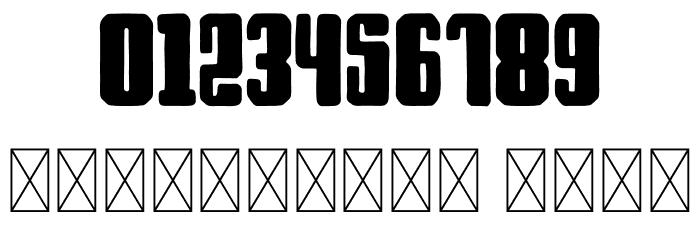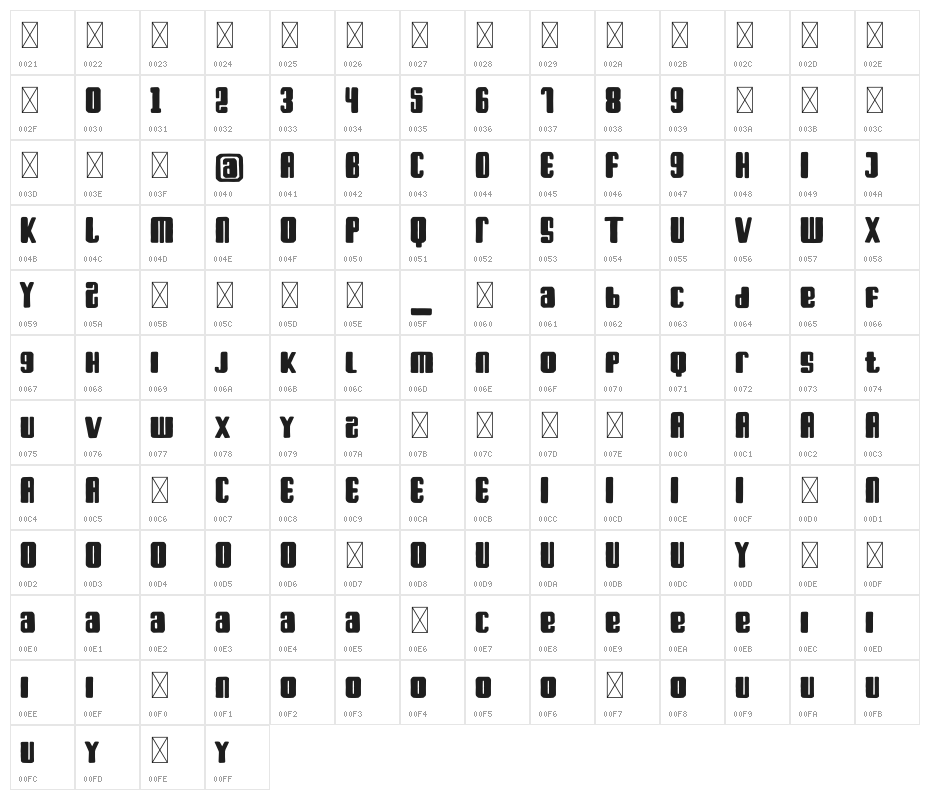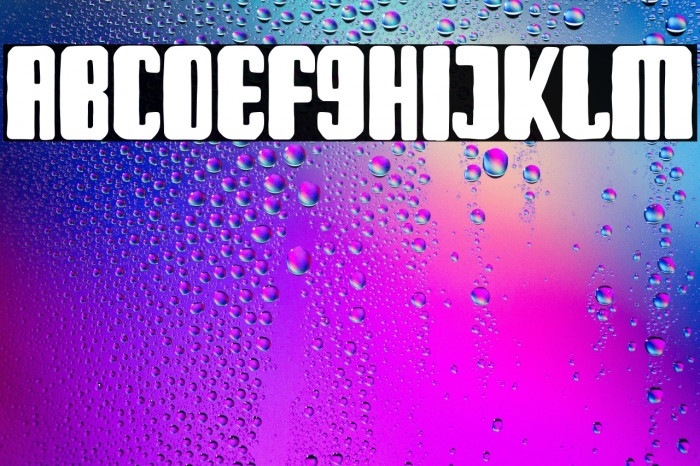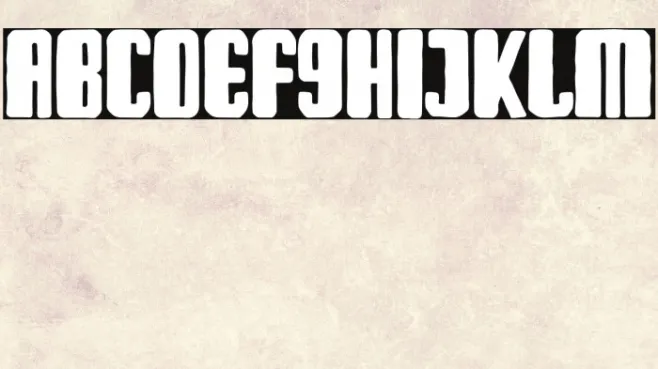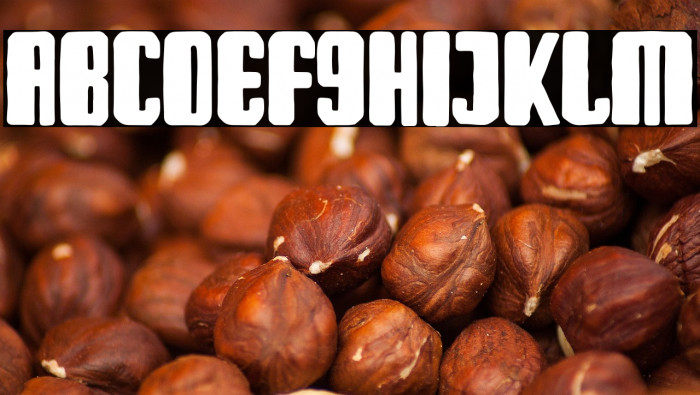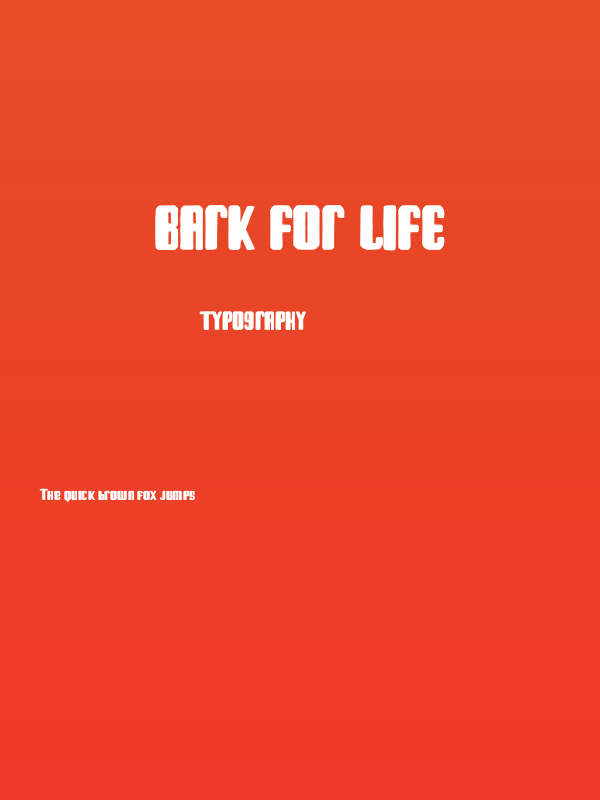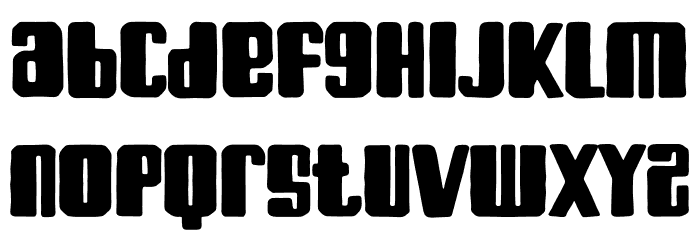
Bark For Life Font
Bark For Life Description
This font features bold, blocky characters with a strong presence, making it ideal for impactful designs. The uppercase and lowercase letters maintain a consistent width, creating a uniform appearance. The numbers are equally bold, ensuring readability and emphasis. The font's style is reminiscent of vintage poster typography, with a modern twist. It lacks any decorative flourishes, focusing instead on solid, straightforward shapes. The characters are tightly spaced, enhancing the compact and robust feel of the typeface. This font is perfect for projects that require a bold statement, such as headlines, posters, and branding materials.
| Proposed Projects | Perfect for headlines, posters, branding, and any design requiring a strong visual impact. |